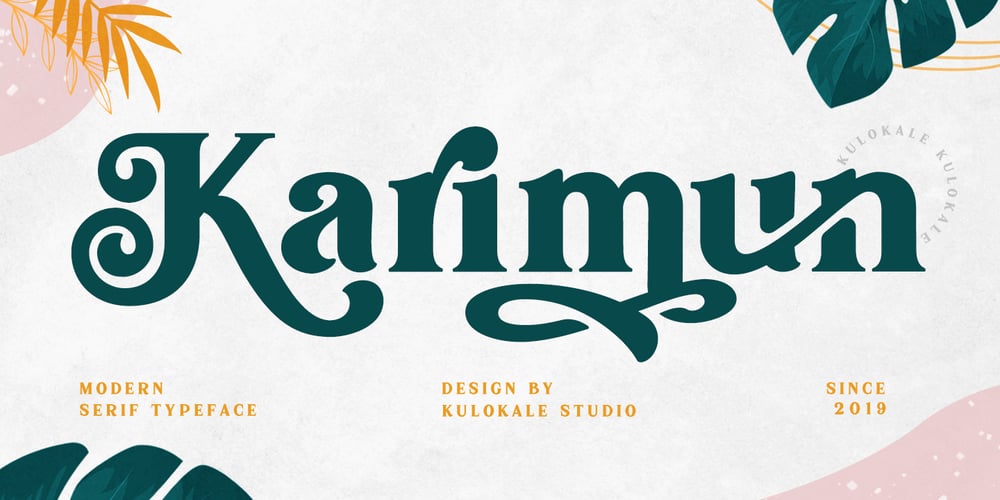
Karimun
Karimun font
Karimun Font Family was designed by Eko Nur Cahyo and published by Kulokale. Karimun contains 2 styles and family package options. Karimun is a modern display serif font with beautiful alternate characters and also ligature which makes it easy for you to create a logo for your personal branding and your business beautifully. Karimun is perfect for many different projects such as logos and branding, invitations, stationery, wedding invite designs, social media posts, advertisements, printed quotes, product packaging, product designs, labels, photography, watermark, special events and more. I highly recommend using a program that supports OpenType features and Glyphs panels such as Adobe Illustrator, Adobe Photoshop CC, Adobe InDesign, or CorelDraw, so you can see and access all Glyph variations. This font is encoded with Unicode PUA, which allows full access to all additional characters without having special design software. Mac users can use Font Book, and Windows users can use Character Map to view and copy one of the extra characters to paste into your favorite text editor / application. We hope you enjoy the font and have fun! Thank You.